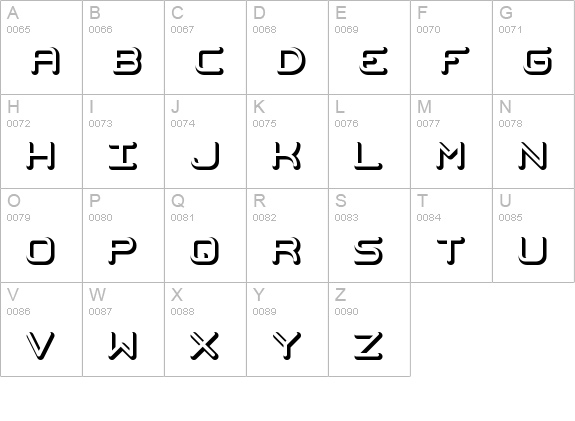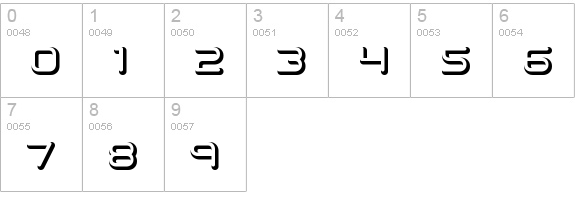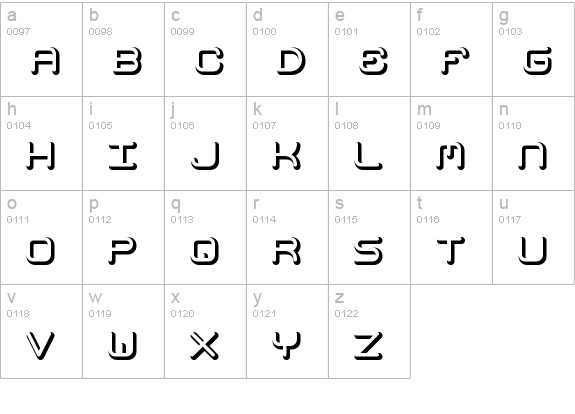
Mishmash Fuse BRK font is a unique and eye-catching display font that will add a touch of playfulness to your designs. With its mishmash of different styles and elements fused together, this font is perfect for making a statement and standing out from the crowd. Whether you're designing posters, logos, or social media graphics, Mishmash Fuse BRK font is sure to grab attention. The best part? Mishmash Fuse BRK font is available for free download at FontsMarket.com. You can easily access this fun and versatile font to enhance your projects without any cost. Don't miss out on the opportunity to add Mishmash Fuse BRK font to your font collection today!